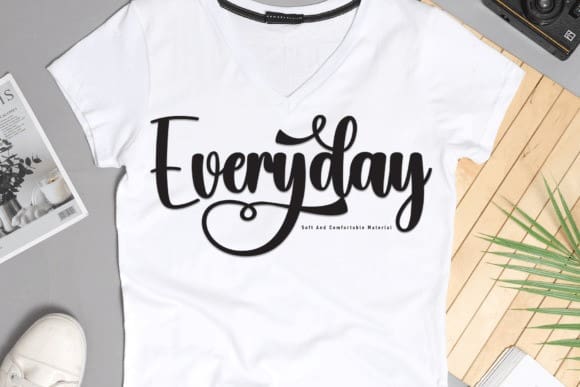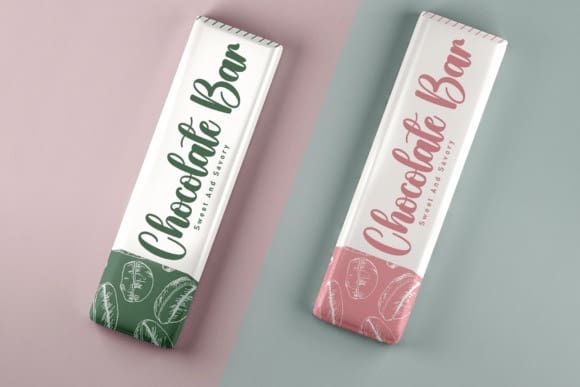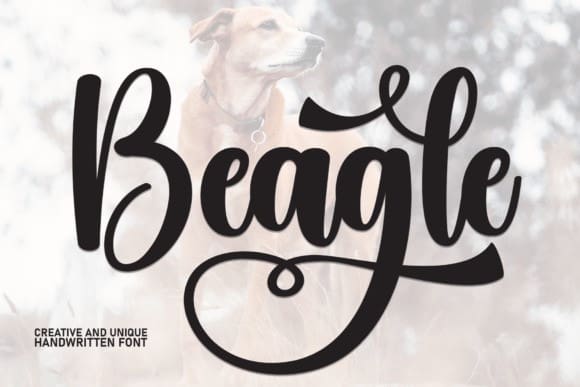
Beagle Script Font
Beagle Script Font, special creative products for you, our products will give you an extraordinary experience.
the latest style letters are perfect for wall displays, wedding invitations, social media post logos,
advertisements, product packaging, product designs, labels, photography, watermarks, invitations, stationery, and any project that requires taste handwriting.